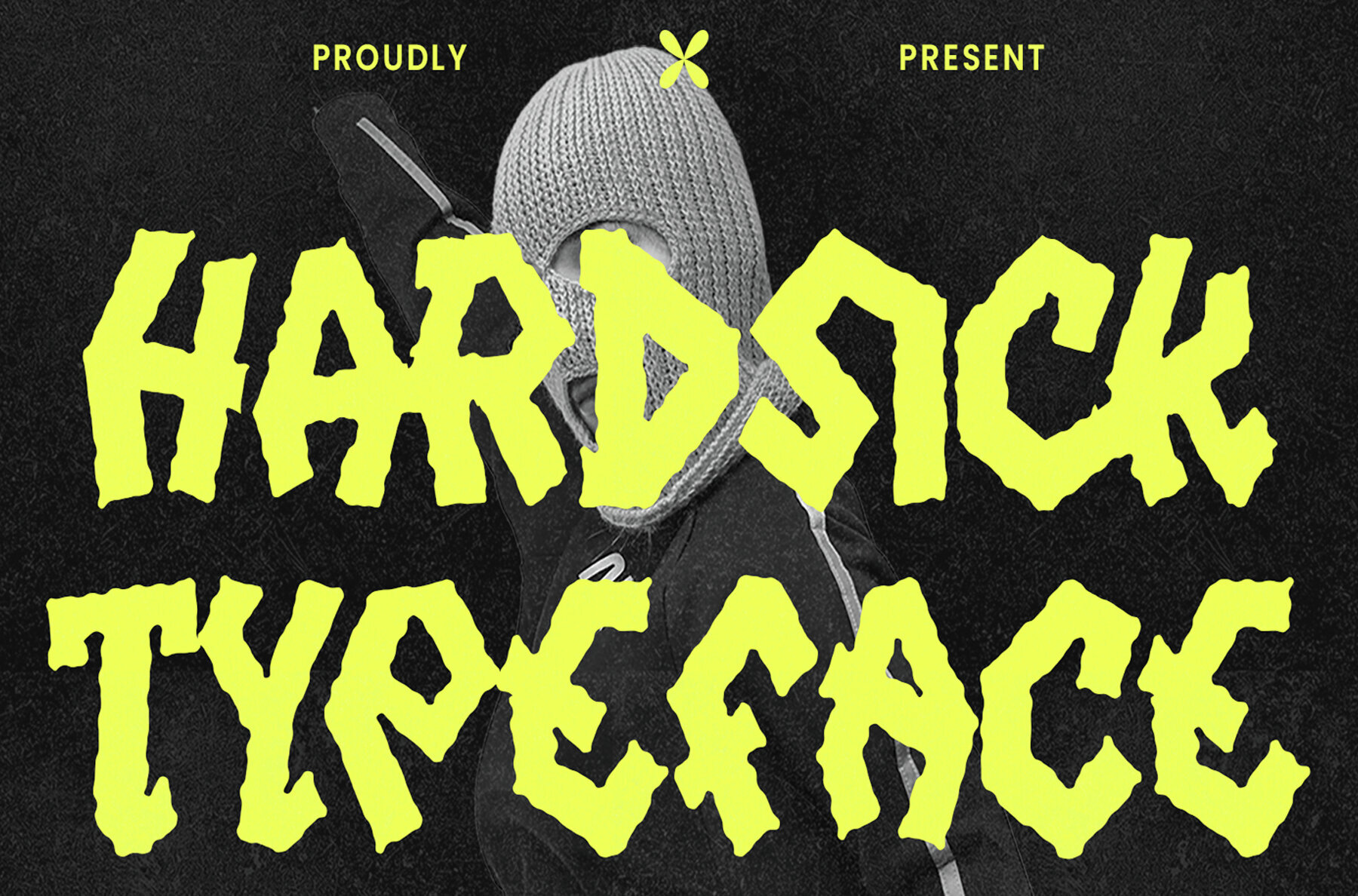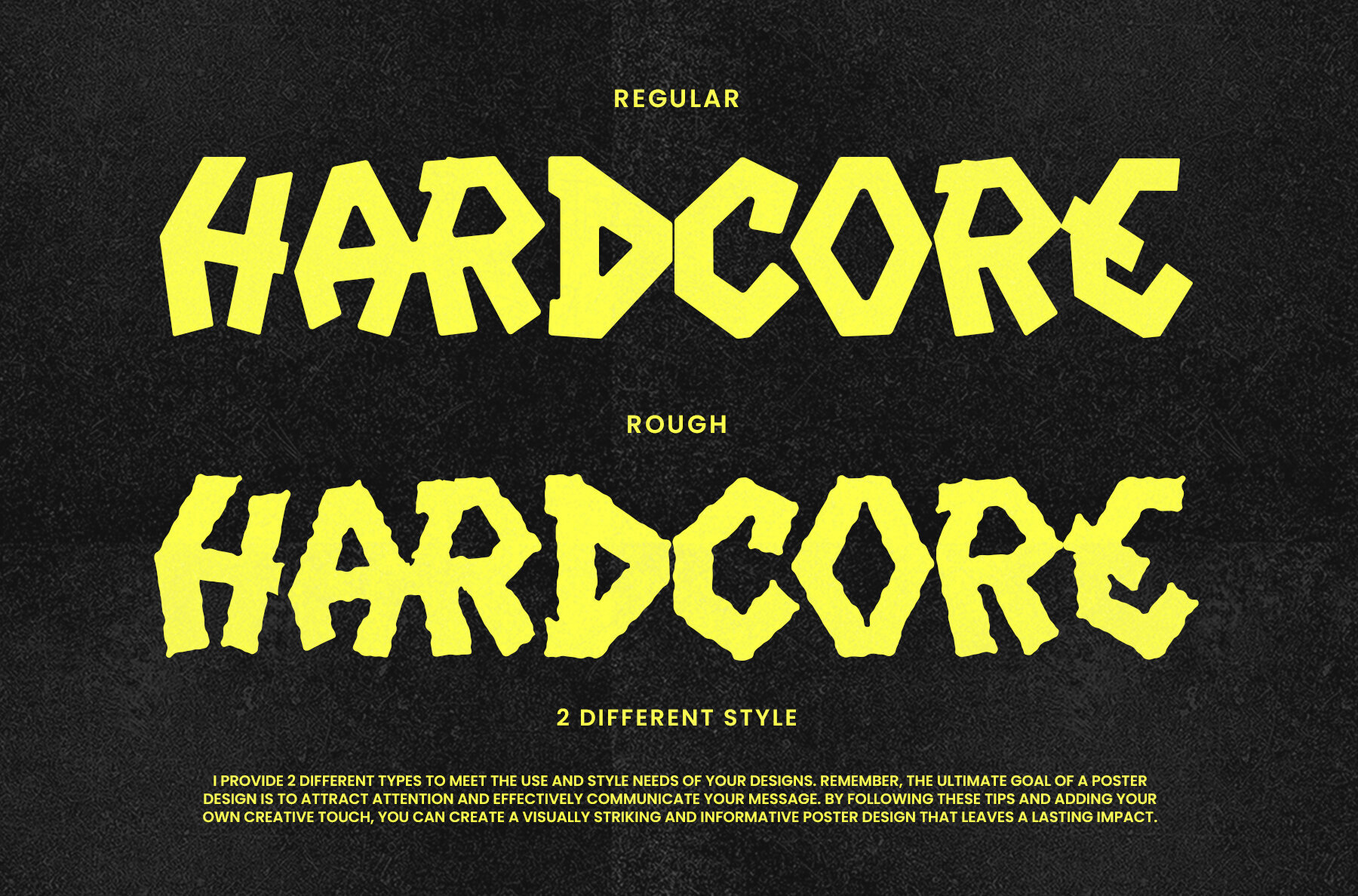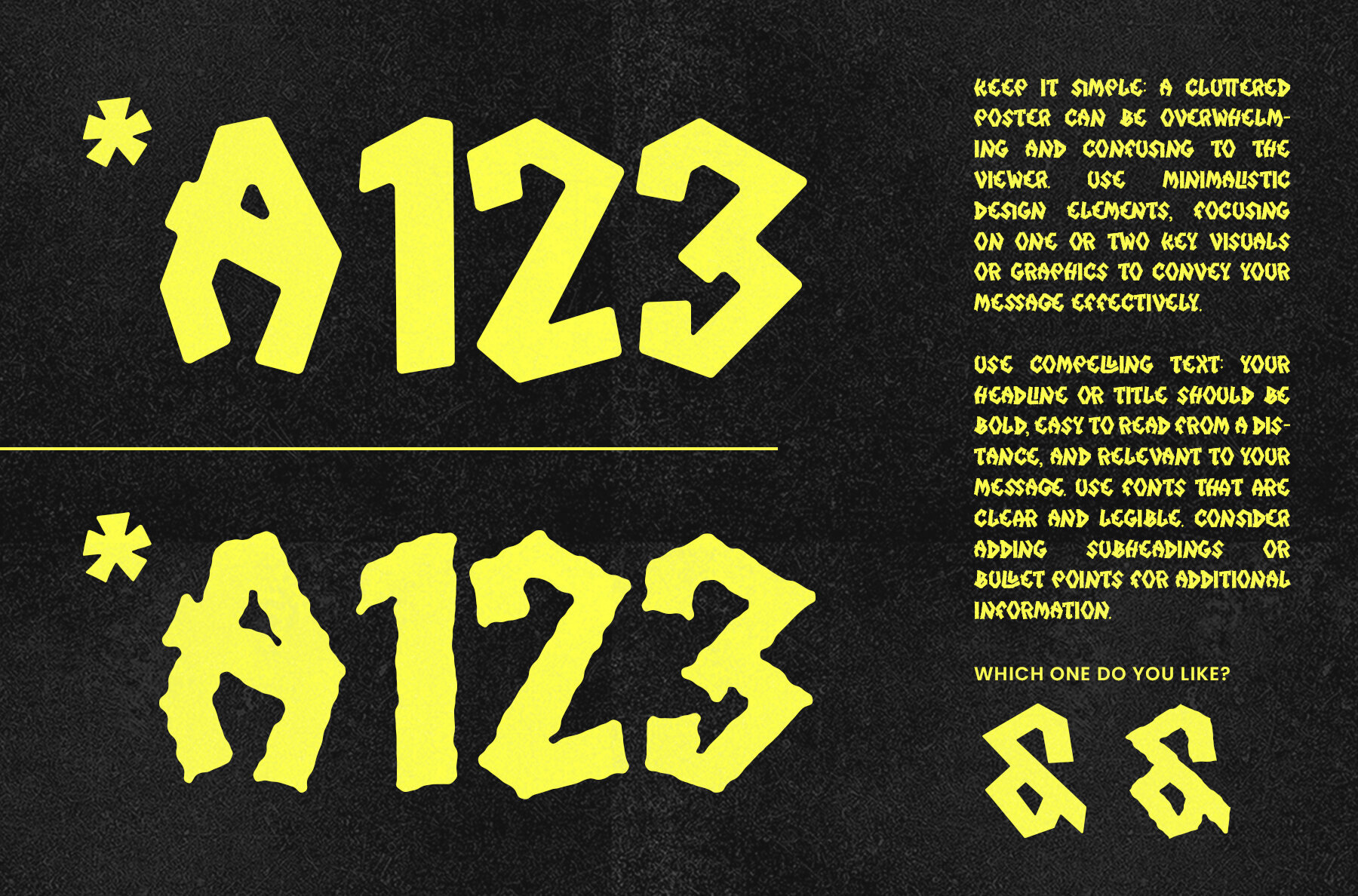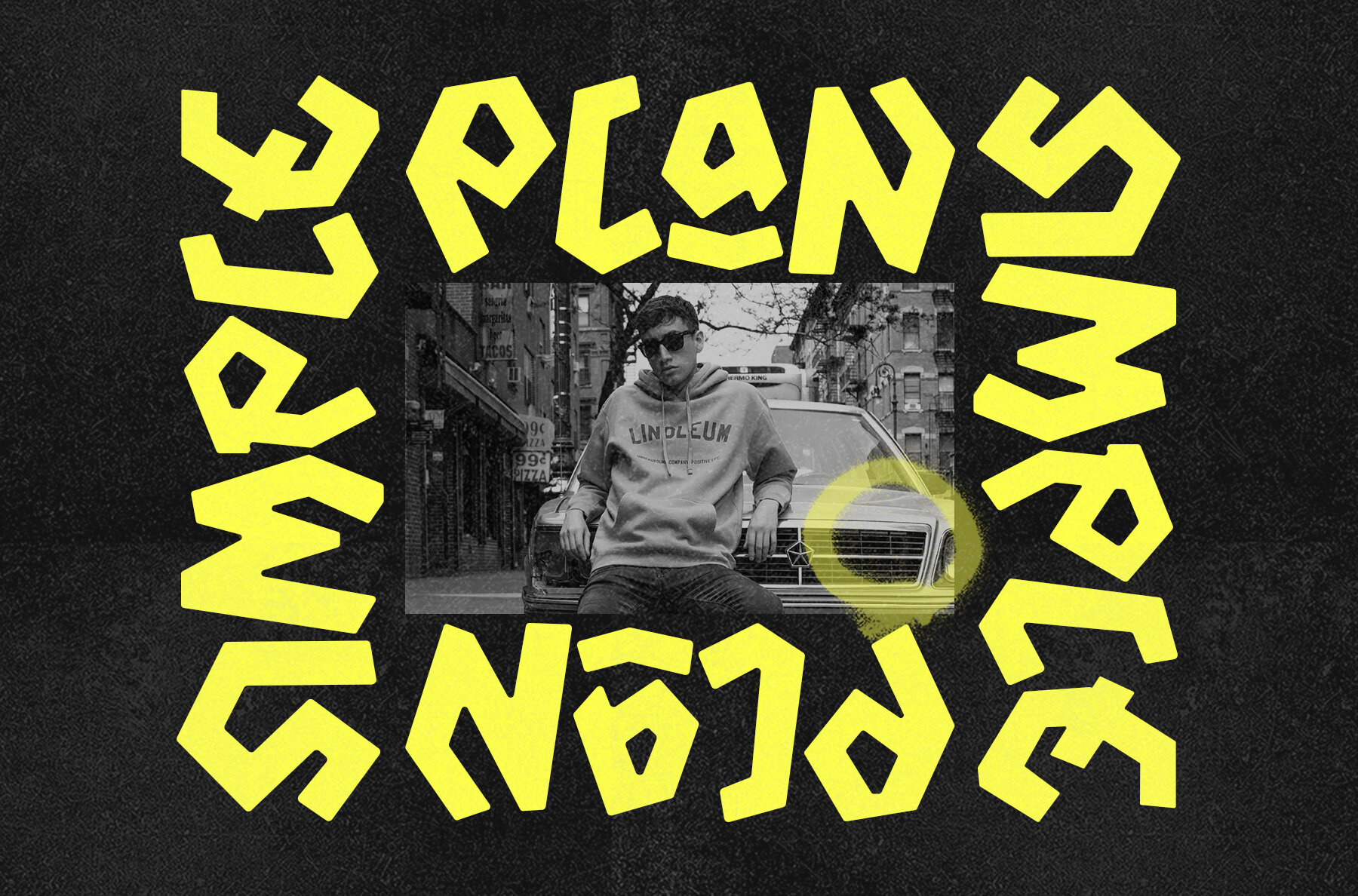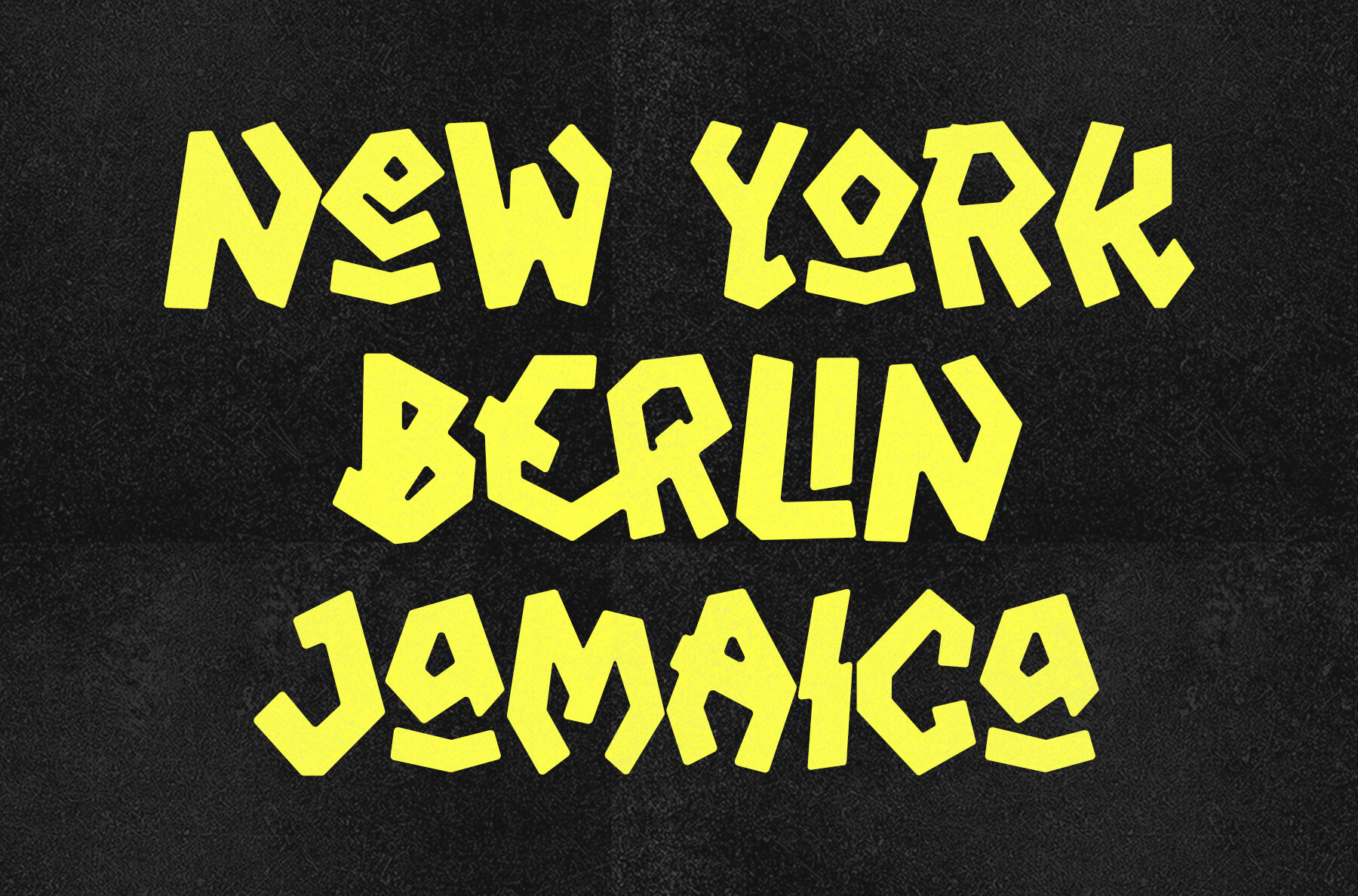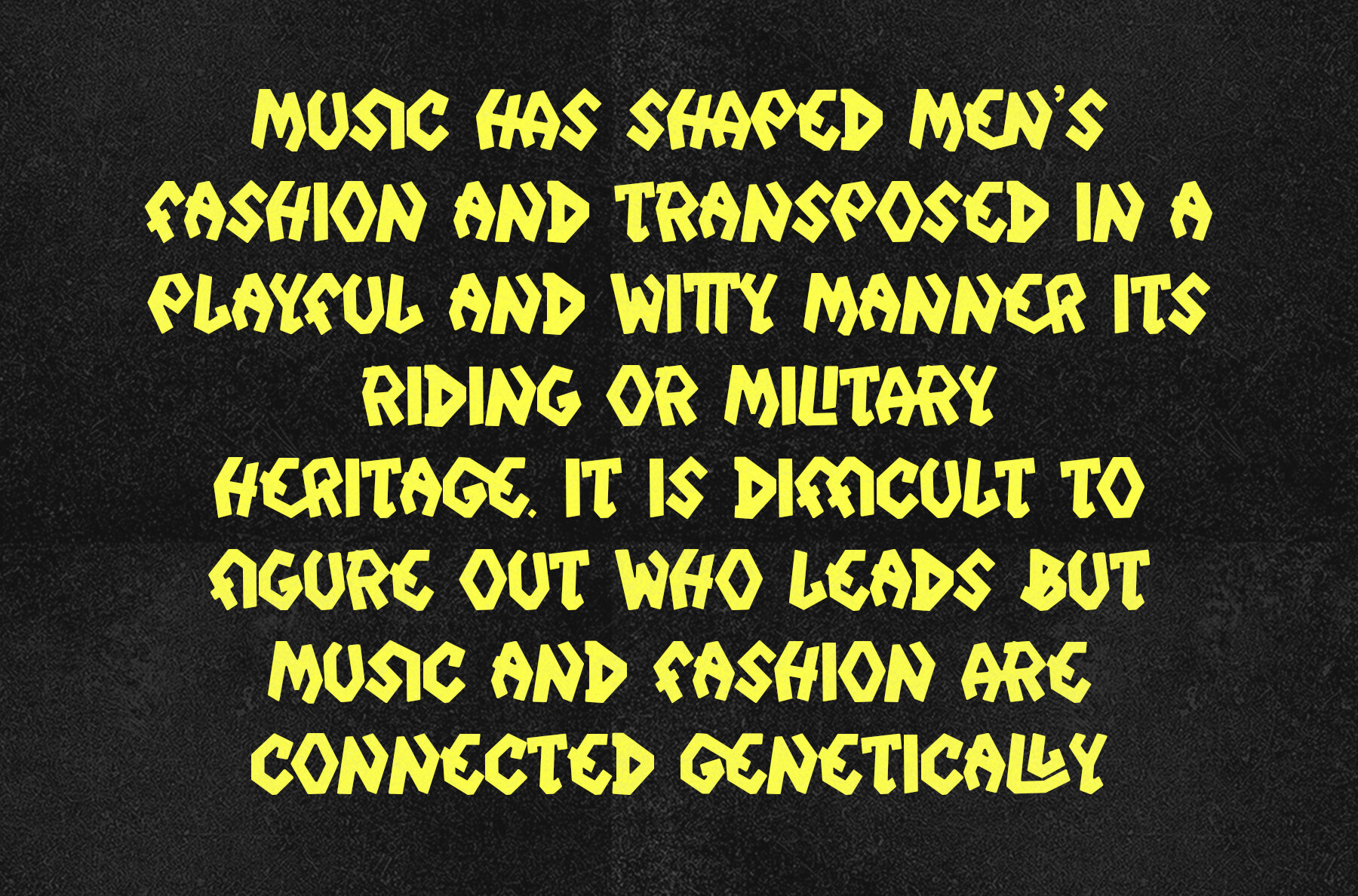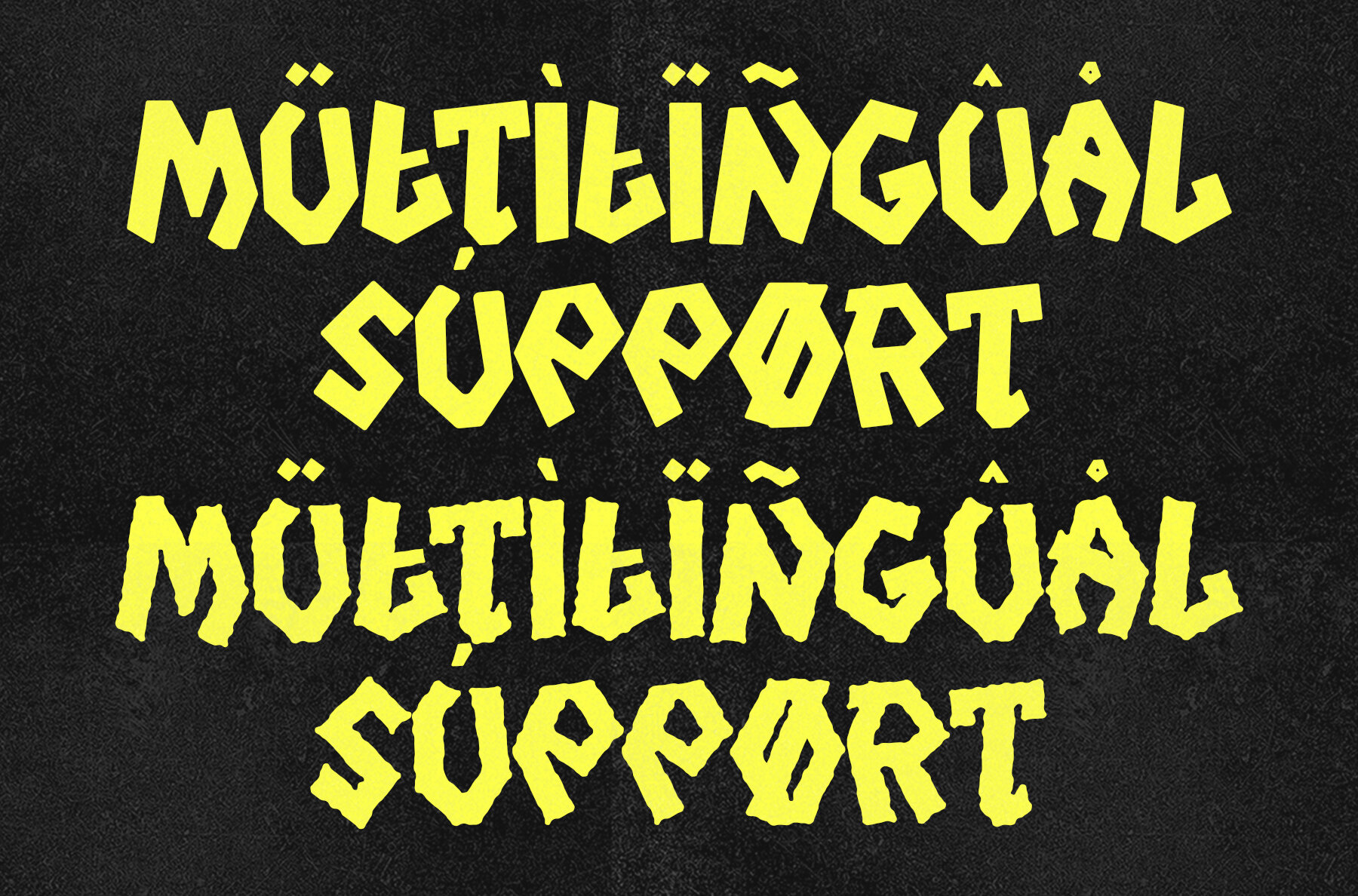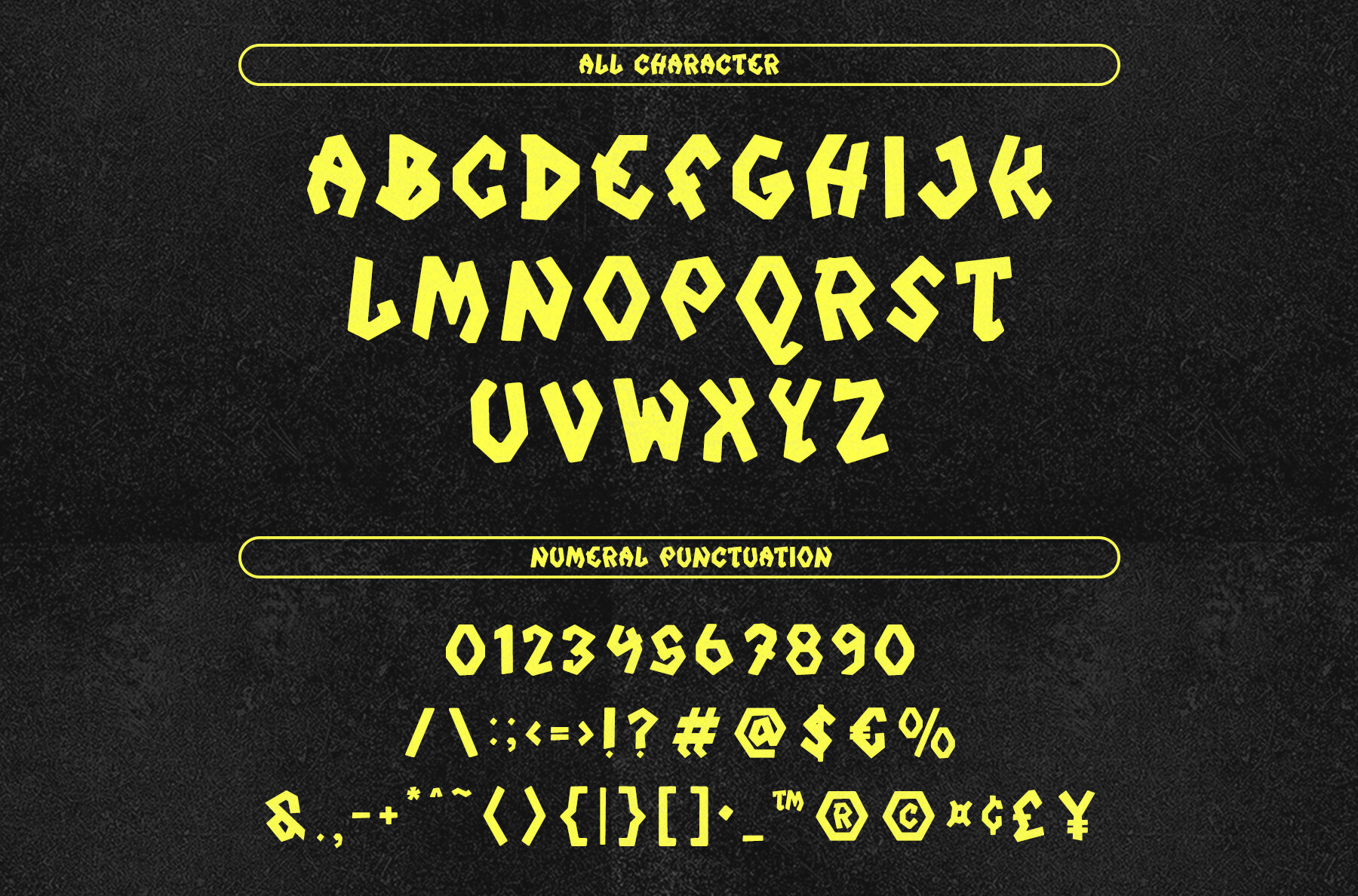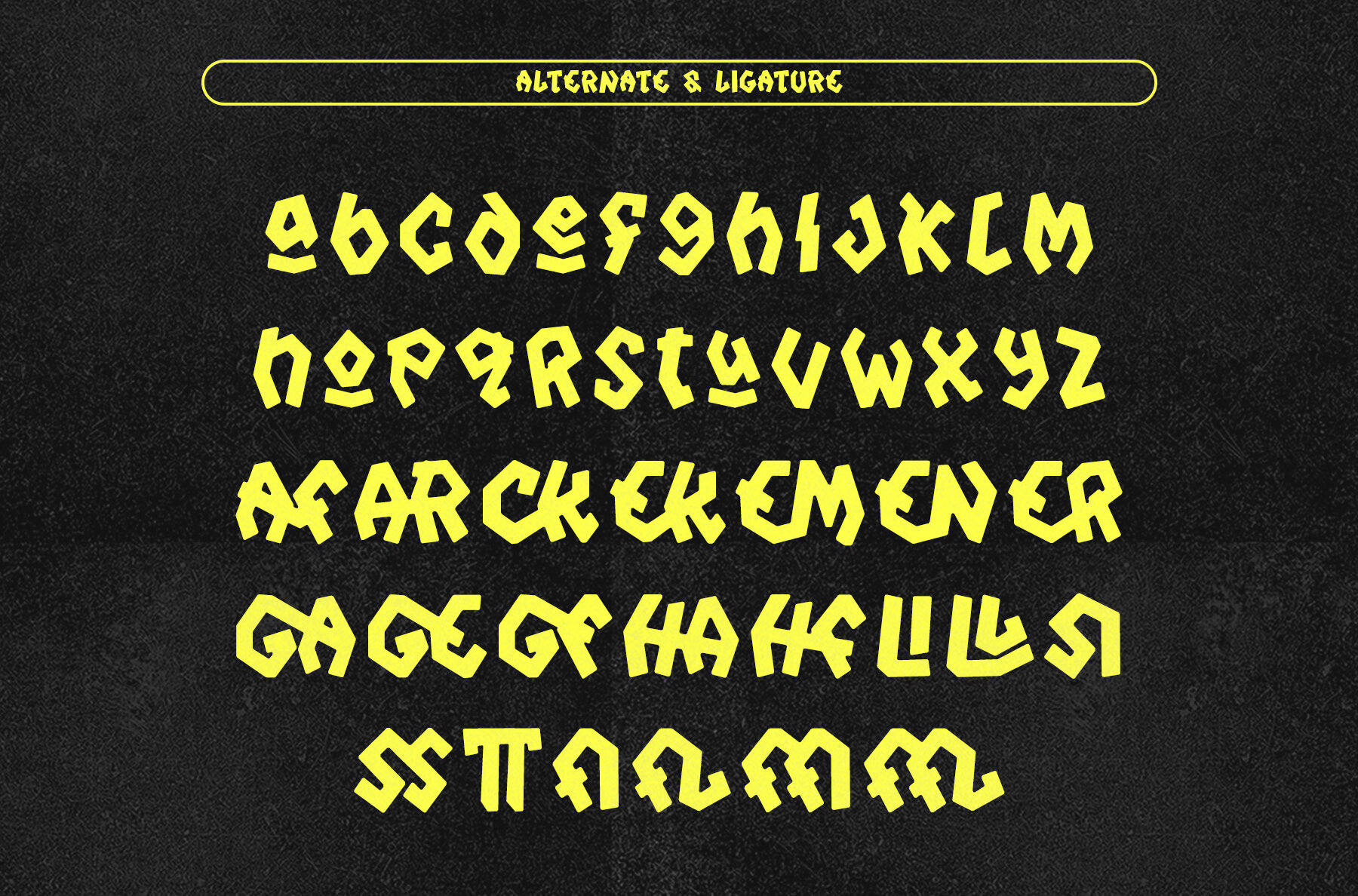
Hardsick Font
Hardsick Regular
The Hardsick font is inspired by Streetwear, which is a style of clothing and footwear that originates from urban culture, especially in cities like New York, Los Angeles, and Tokyo. Her trademark is her clothing which is casual, comfortable, and often too big or baggy, incorporating elements from skateboarding, hip-hop, and youth subcultures. This font I created is meaningful & very versatile, it goes well with various designs, elevating them to the highest level. Add this font to your favorite creative ideas and see the results!